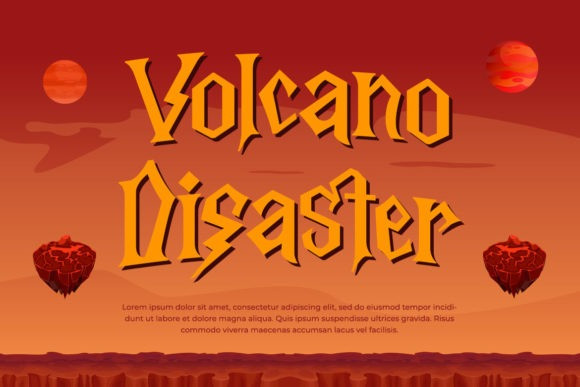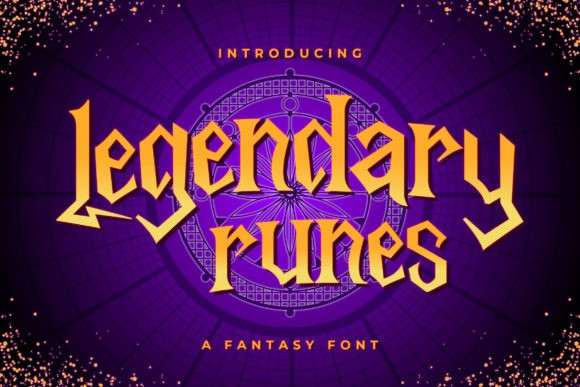
Legendary Runes Font
Legendary Runes Display Font is a fantasy display font that will immediately take you into a fairytale land. Add this cartoon-like font to a wide range of creations related to children adventure, games or parties.